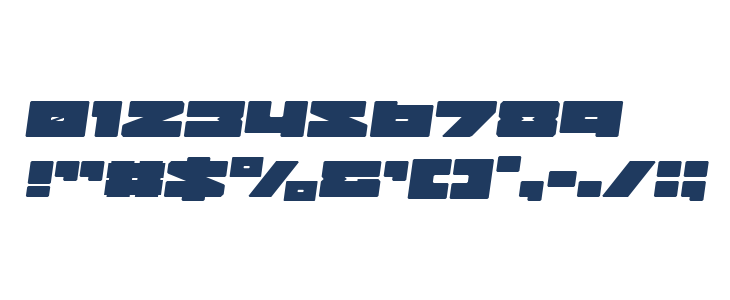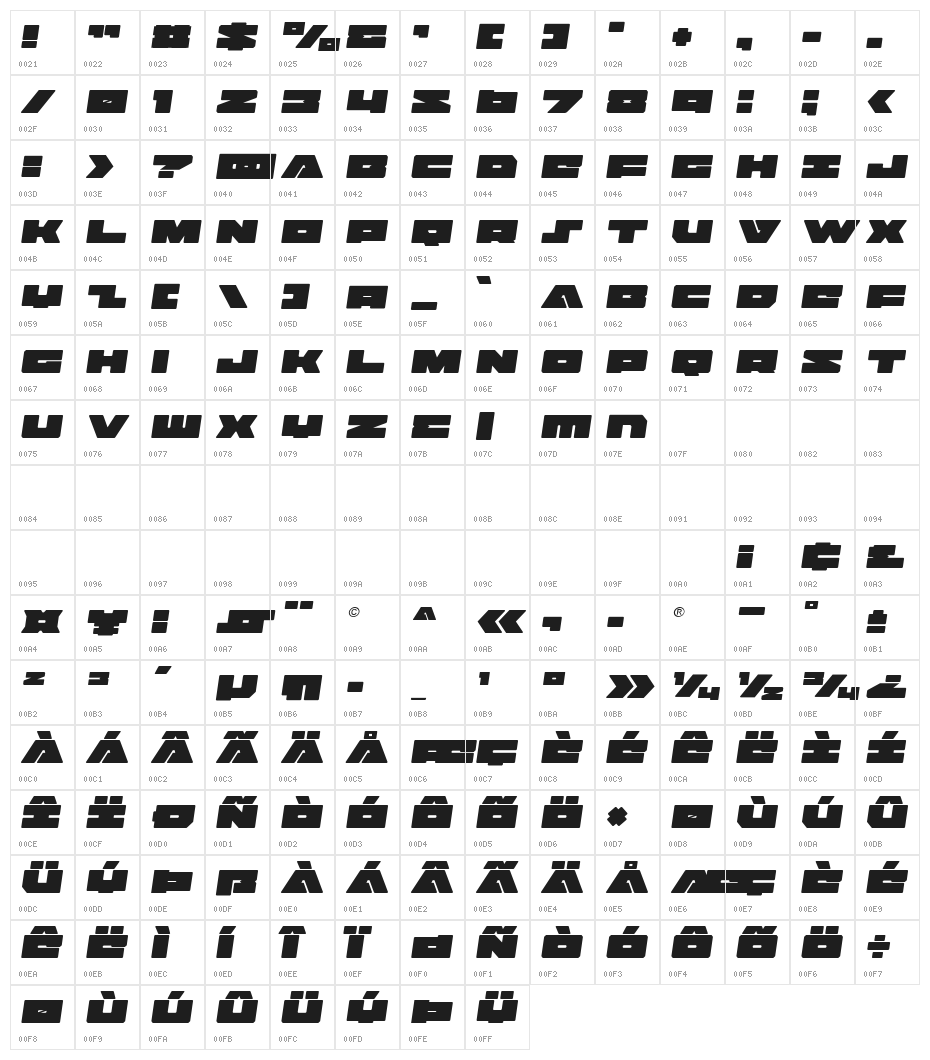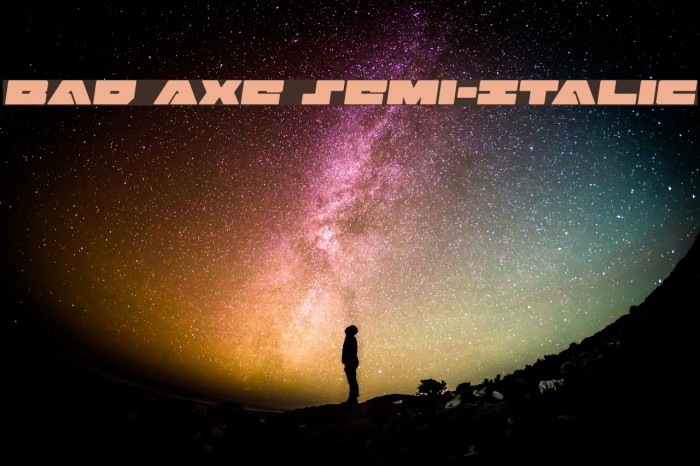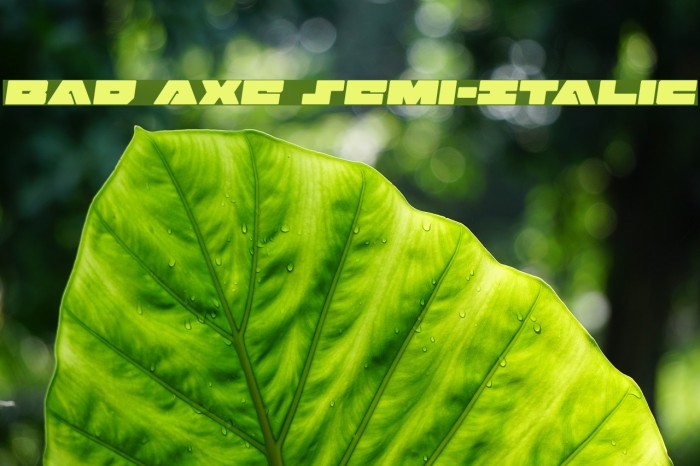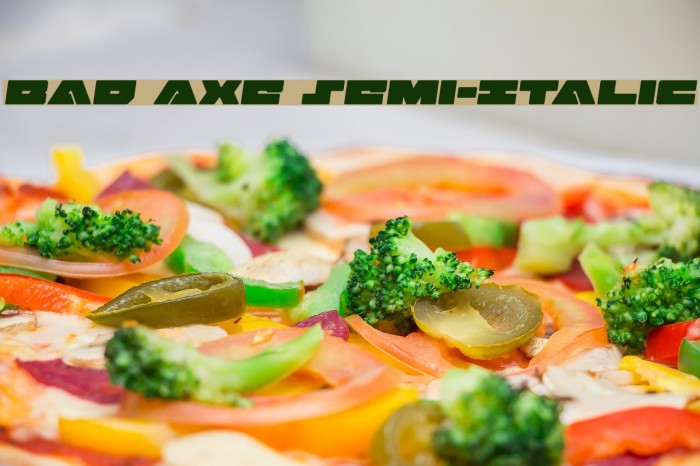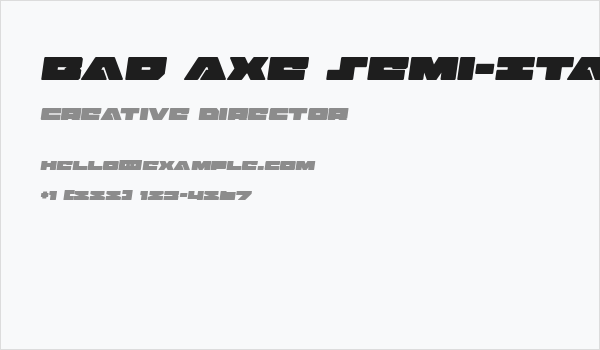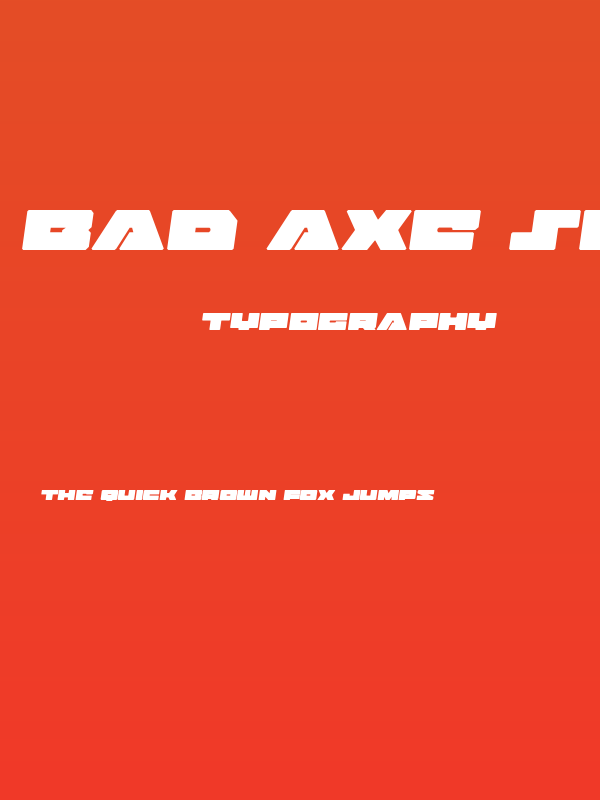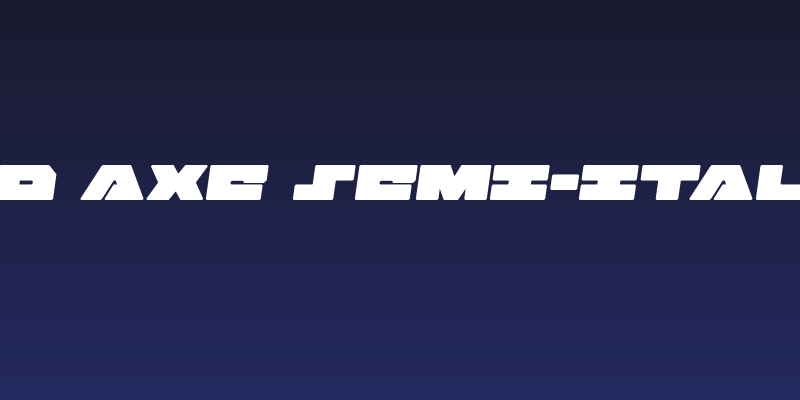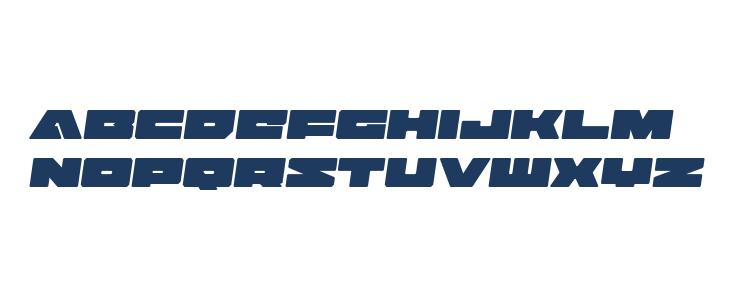
Bad Axe Semi-Italic Font
Bad Axe Semi-Italic Description
This font features a bold, geometric design with a strong presence. The characters are blocky and angular, giving it a futuristic and industrial feel. The uppercase letters are particularly striking, with sharp edges and a consistent weight throughout. The lowercase letters maintain the same boldness, ensuring readability while retaining the font's unique style. Numbers and special characters are designed to match the overall aesthetic, making this font versatile for various applications. Its semi-italic slant adds a dynamic touch, enhancing its modern appeal.